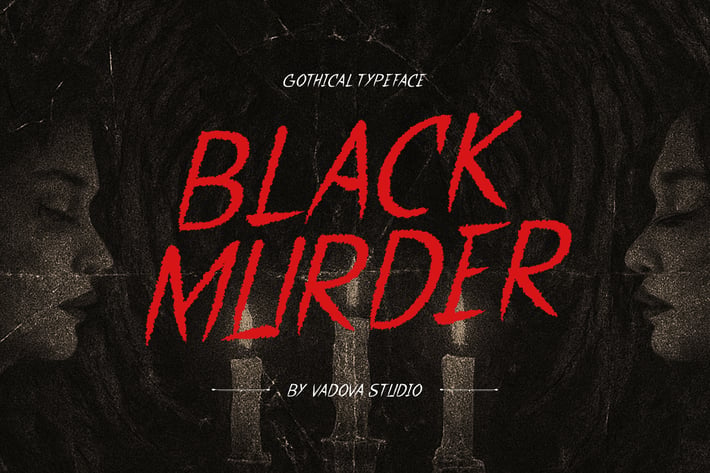
Black Murder Gothical Font
Vadovastd
Black Murder is a bold and haunting gothic blackletter font that channels the essence of medieval darkness and horror elegance. Perfect for fantasy covers, gothic metal band logos, and vintage-style posters, this typeface blends old English aesthetics with heavy modern strokes. With dramatic curves and a chilling atmosphere, itβs ideal for invoking mystery, danger, and ancient power in any design. Black Murder is the go-to font for creators seeking a striking and sinister visual impact.
Main Features
Uppercase & Lowercase characters
* Numeral & Punctuations